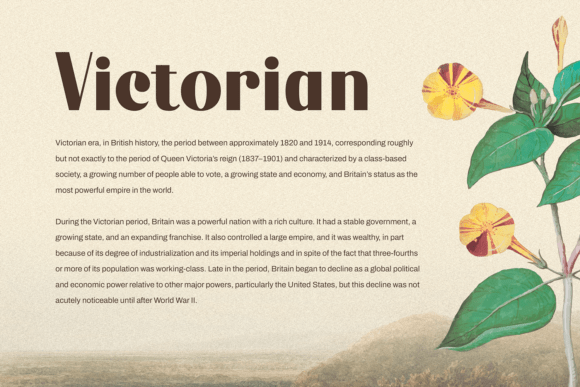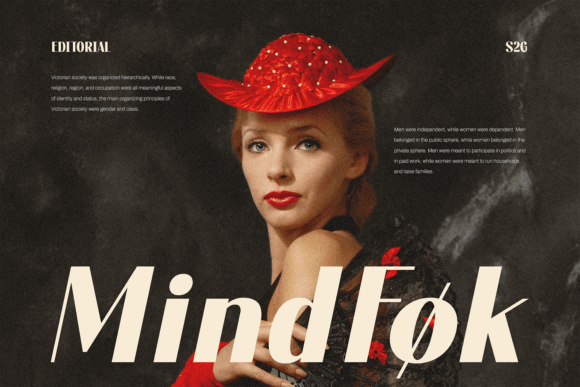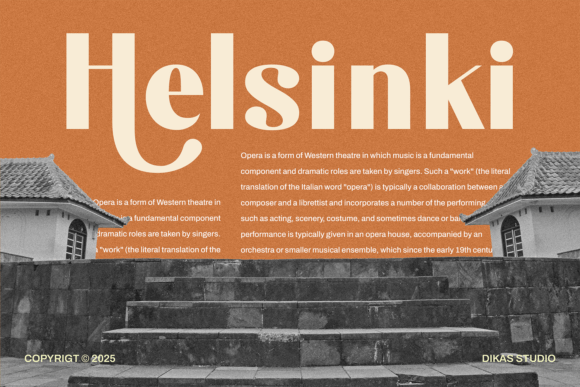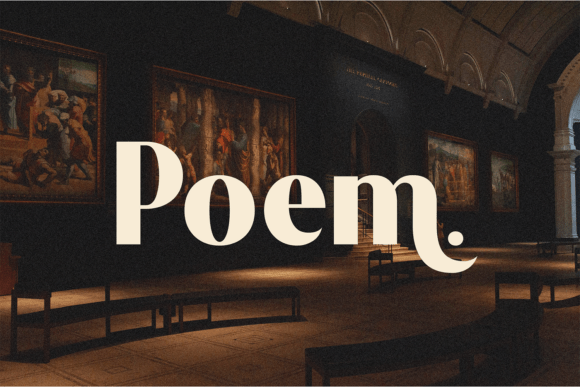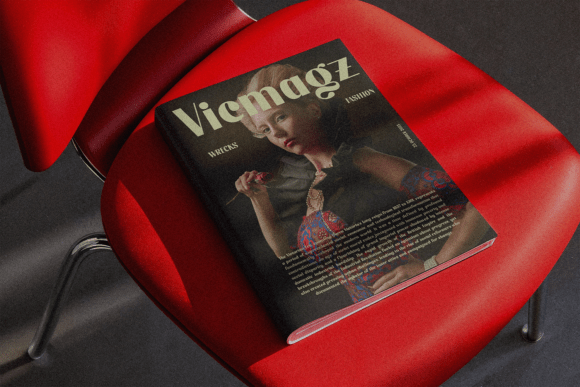
Introduction to Meliny Font Font
Fonts play a crucial role in design, and the Meliny Font font is a typeface that brings both character and versatility to any project. Whether you’re working on a branding project, a website, or a print design, the Meliny Font font offers a unique style that can elevate your work.
| 📌 Font Name | Meliny Font |
| 👤 Author | Dikas Studio |
Meliny is a bold, curvaceous, and sensual display font that features high-impact swashes and fluid typography, ideal for captivating luxurious branding.
This stunning typeface demands attention with its dramatic curves and thick-to-thin stroke contrast, offering both a regular and an oblique style for maximum design versatility The oversized, looping glyphs and elegant swashes give this font a unique, unmistakable personality, making it perfect for high-end packaging, glamorous magazine headlines, bold fashion logos, and retro-chic album covers.
Key Features of Meliny Font Font
Why Choose Meliny Font Font?
The Meliny Font font is more than just a typeface – it’s a design tool that helps you communicate your message with style and clarity. Its unique character set and versatile design make it suitable for a wide range of applications, from elegant invitations to bold headlines.
With its carefully crafted letterforms and balanced proportions, the Meliny Font font ensures readability and visual appeal across all mediums.
What makes Meliny Font font special?
The Meliny Font font stands out with its unique design, exceptional readability, and versatility across various design applications.